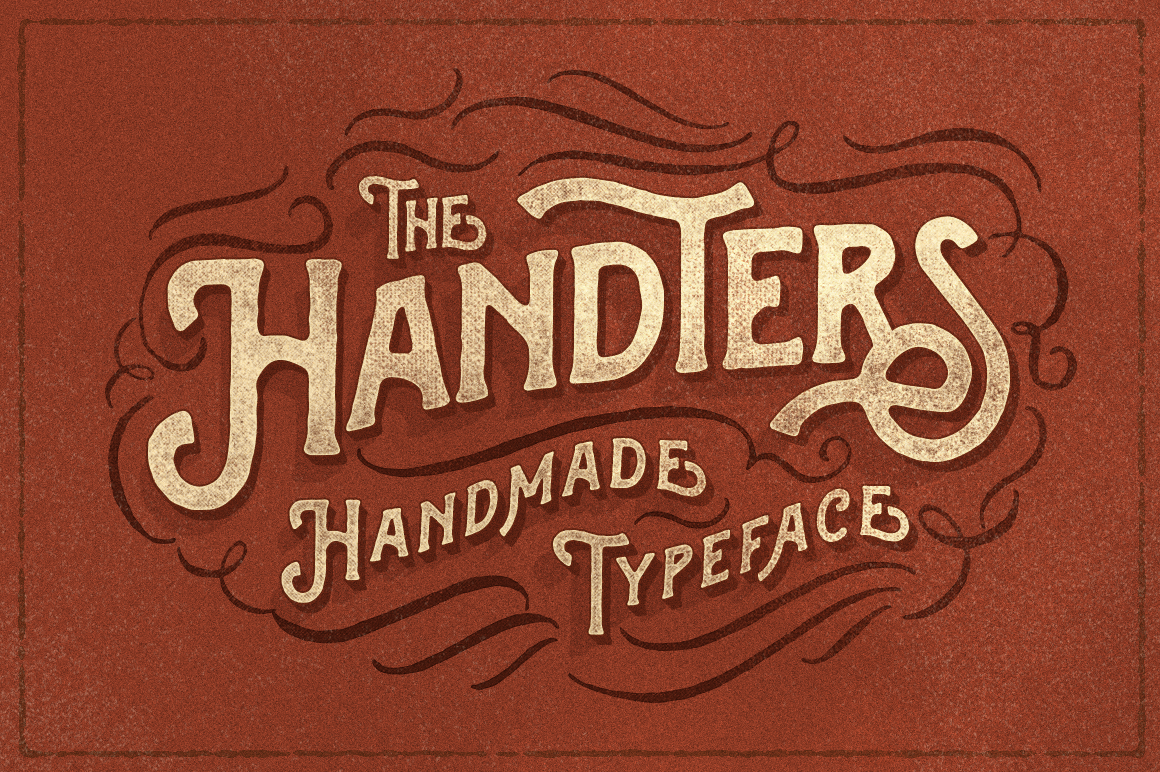
Handters typeface
Introducing the new Handters Typeface, another display serif font with handdraw style, and a touch of ornament makes this font look stylist. Plus OpenType features with Stylistic Alternates and Contextual Alternate in some characters that allows you to mix and match pairs of letters to fit your design. This font good for vintage design, t-shirt, logo, labels, posters and etc.